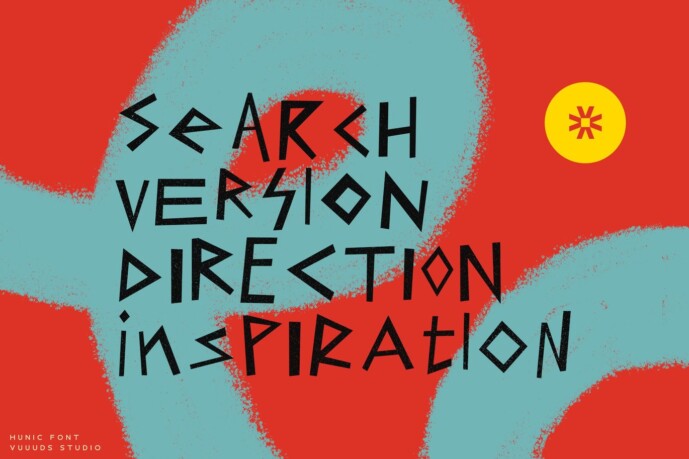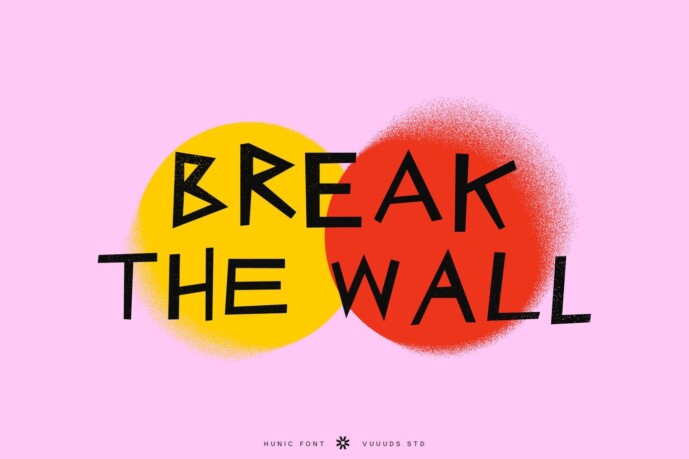
Hunic Font
Hunic Font is a modern and casual font, each letter has been uniquely designed. This font includes a beautiful alternate glyph. You can access the alternate glyph via Font Book (Mac user) or Windows Character Map (Windows user). The tutorial link has been placed in the zip file.